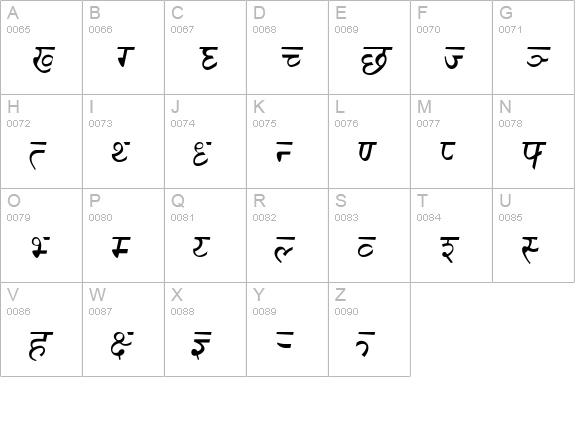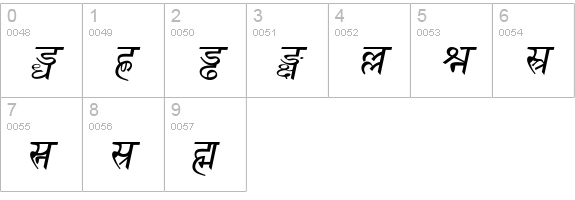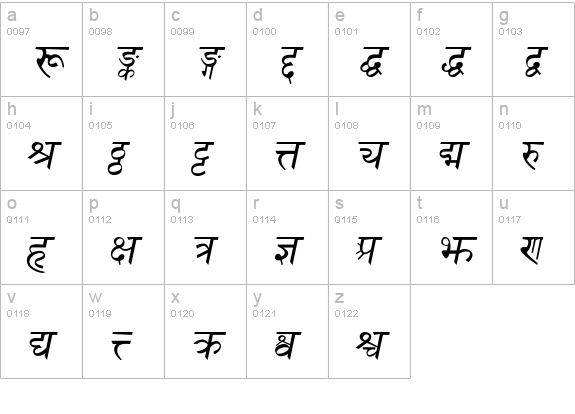
Sanskrit Italic Font Details
Sanskrit Italic is a distinctive, italic variant in the Sanskrit typeface family \xE2\x80\x94 well suited to design and typography projects.
Introducing Sanskrit Italic, a mesmerizing font that seamlessly blends elegance and tradition. This font is a true testament to the beauty of the Sanskrit language, capturing the essence of its ancient script in every stroke. Its delicate and flowing curves exude a sense of grace and sophistication, making it perfect for various design projects. Sanskrit Italic is not just visually stunning but also highly versatile. Whether used in print or digital media, this font effortlessly adds a touch of cultural richness and uniqueness to any project. Its distinct italic style adds a sense of dynamism and movement, lending a contemporary twist to the classic Sanskrit script. The best part? Sanskrit Italic is absolutely free! Available for download exclusively at FontsMarket.com, this font allows you to explore the beauty of Sanskrit without any cost. Now, you can freely incorporate the charm of this ancient language into your designs, while enjoying the convenience and accessibility of a readily available font. With Sanskrit Italic, the possibilities are endless. From branding and logo design to invitations and editorial layouts, this font seamlessly adapts to any creative endeavor. Its legibility and artistic appeal make it a perfect choice for both headline and body text, ensuring a visually captivating reading experience. So why wait? Dive into the world of Sanskrit Italic and unlock a new realm of design possibilities. Download this free font today at FontsMarket.com and let your creativity soar as you embrace the rich heritage of Sanskrit in your designs.